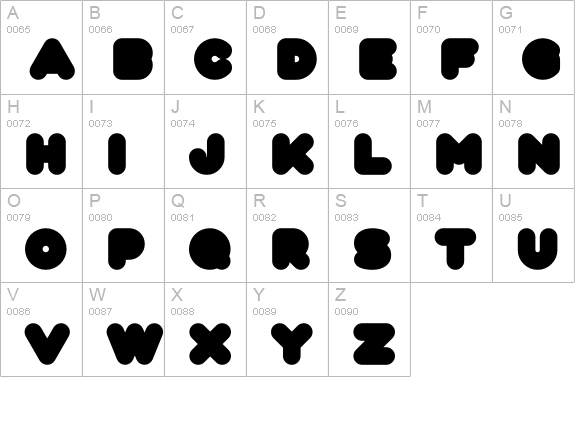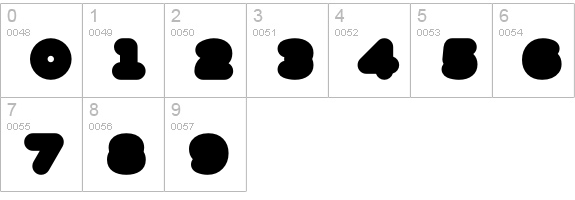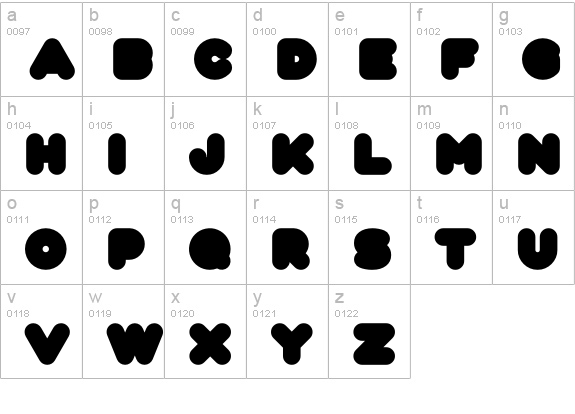
Fun City Level 6 Basic font is a playful and energetic typeface that exudes a sense of fun and excitement. With its bold and dynamic letterforms, this font is perfect for adding a touch of whimsy to your designs. Whether you're working on a poster, flyer, or logo, Fun City Level 6 Basic font will bring a sense of joy and liveliness to your projects. Best of all, this font is available for free download at FontsMarket.com. Just head to the website and grab your copy today to add a dose of fun to your designs. Don't miss out on this fantastic opportunity to enhance your creative projects with the vibrant Fun City Level 6 Basic font.